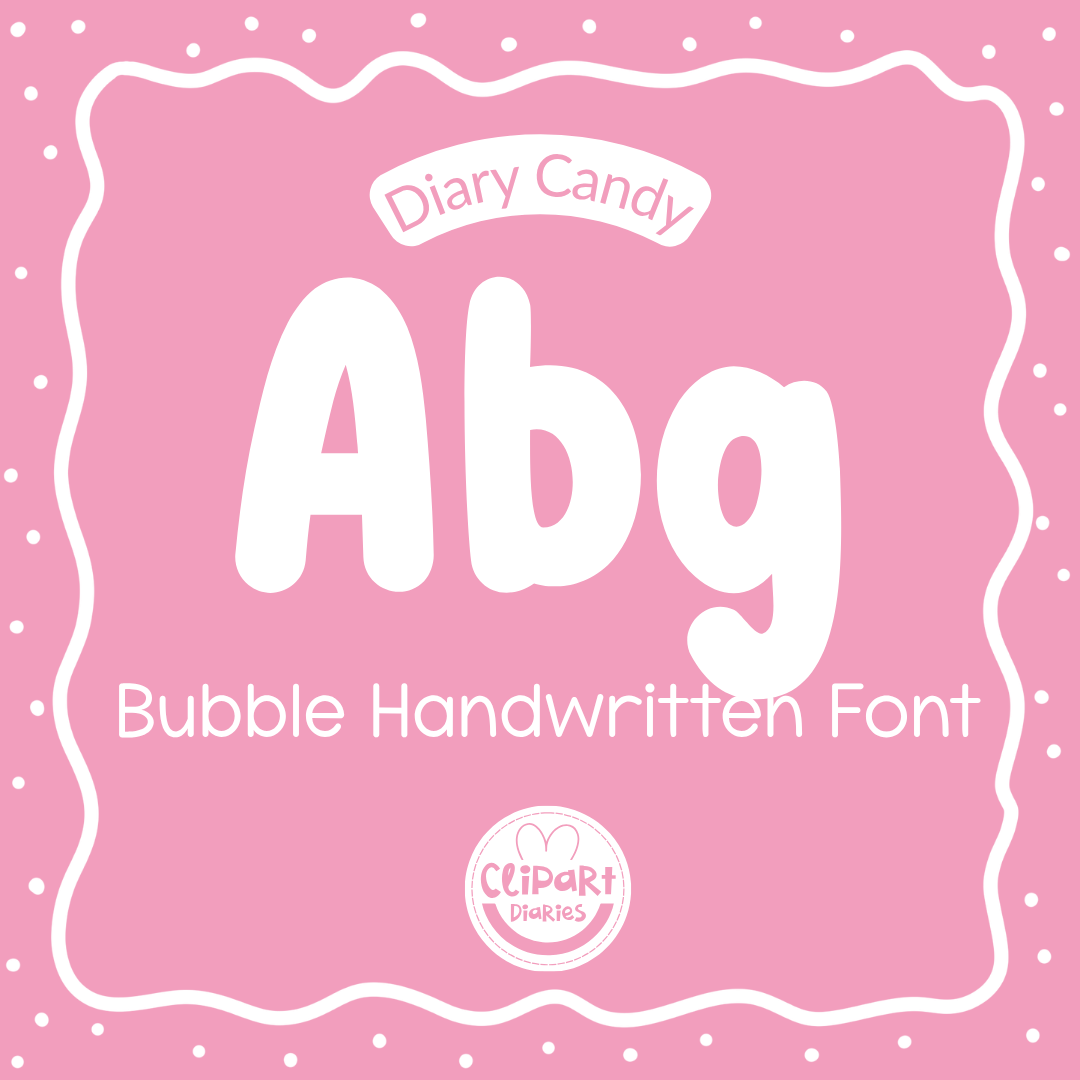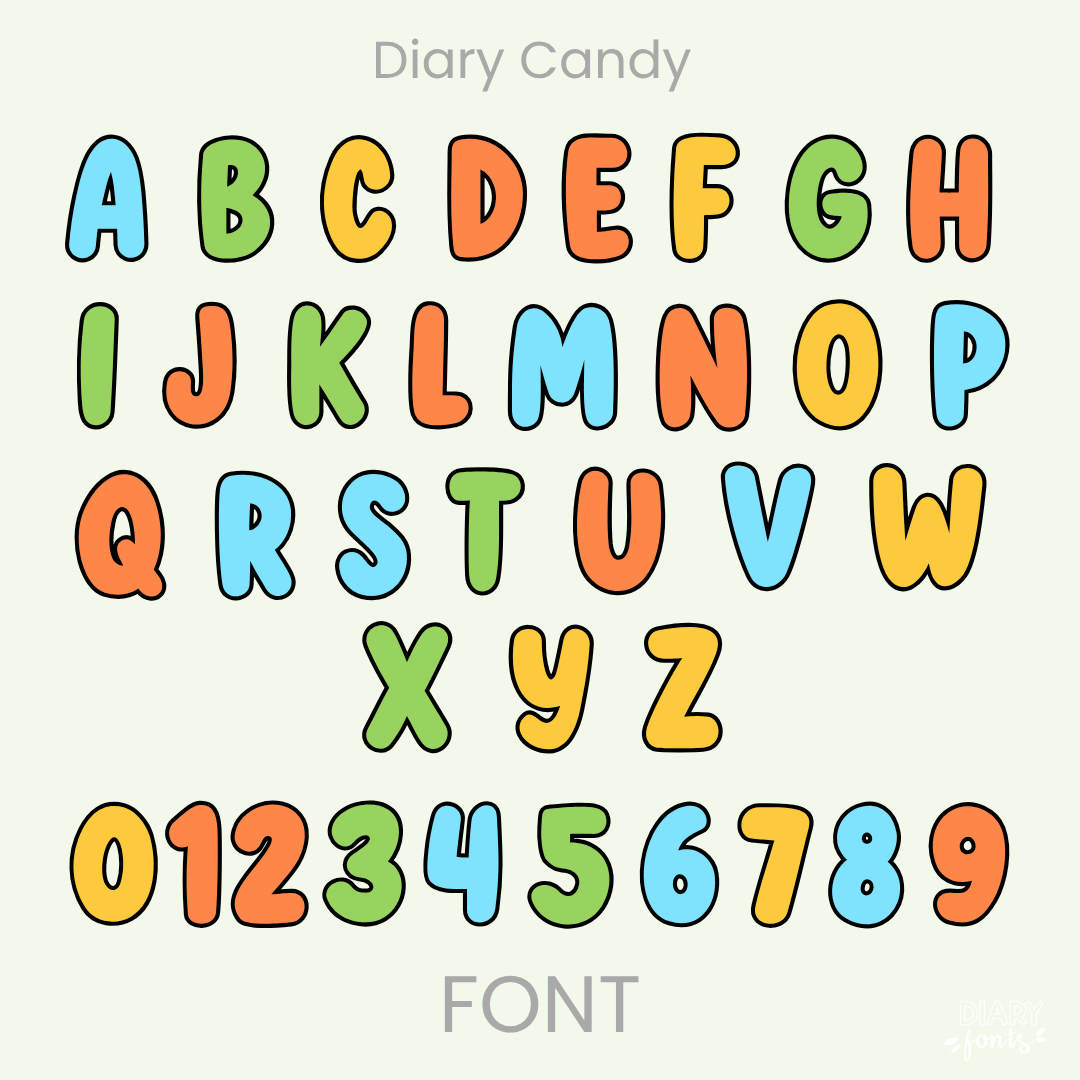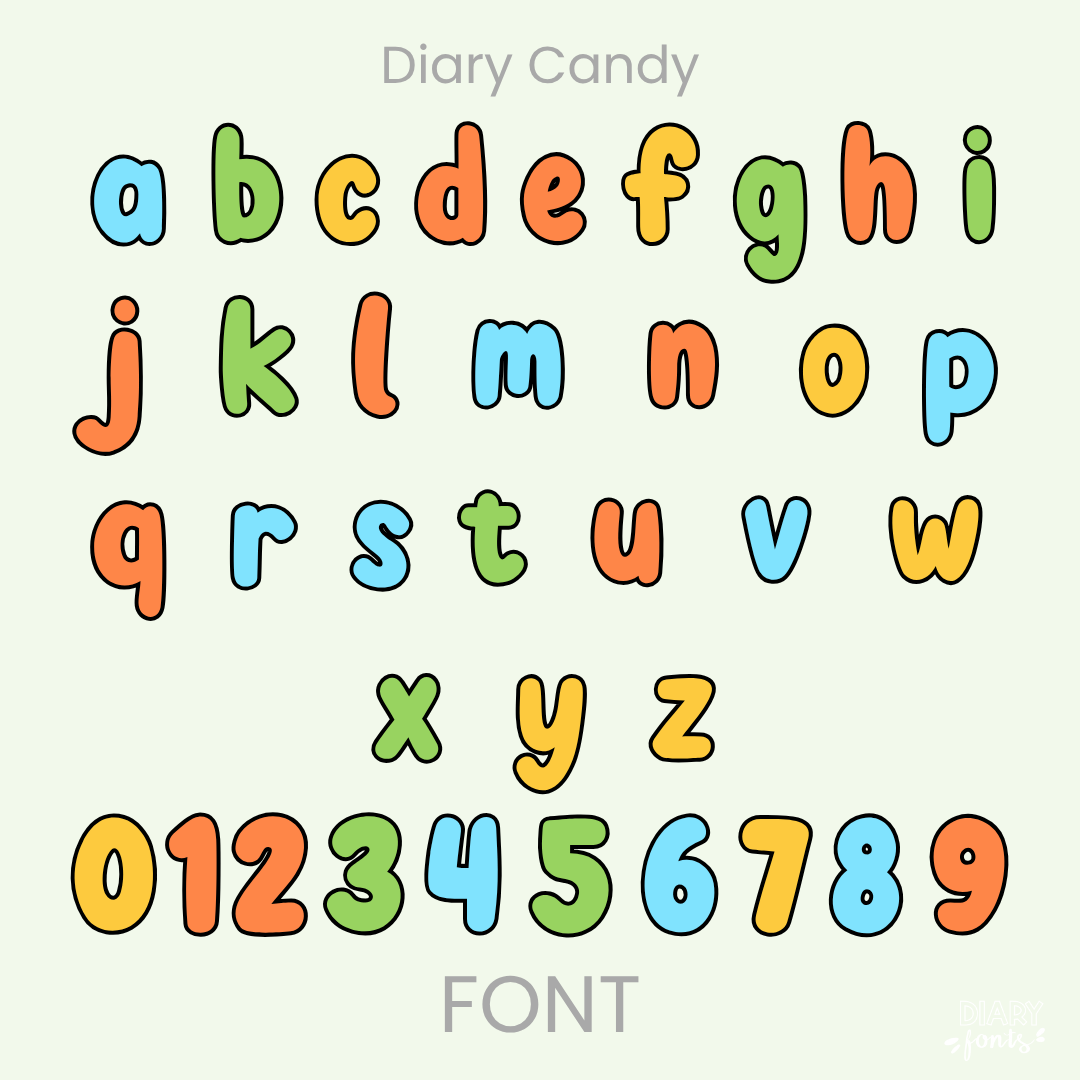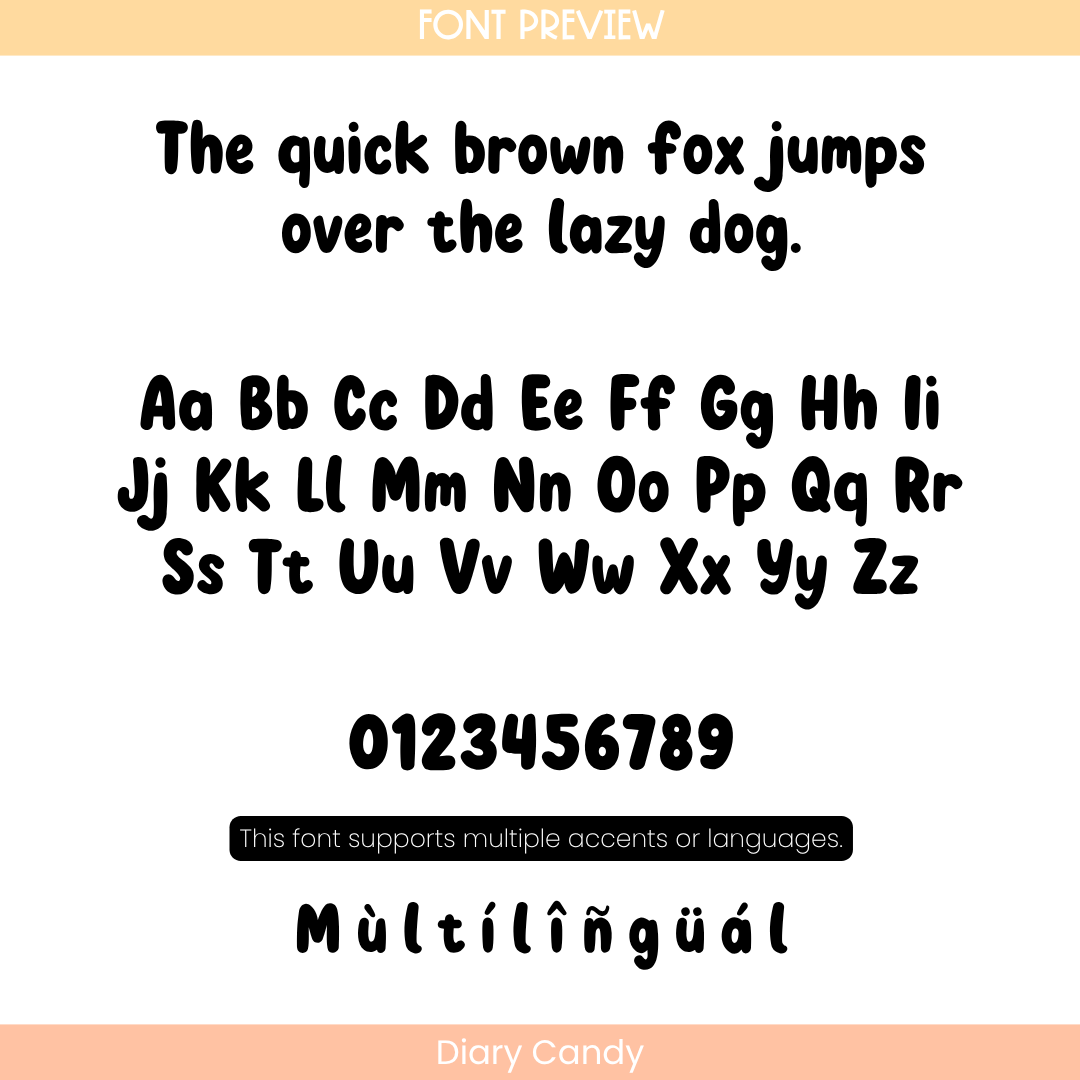
If you are looking for a font that feels fun and friendly, Diary Candy is a great pick. It features smooth, rounded letterforms with a slightly thick stroke, making it look a bit like classic bubble letters but with a natural, handwritten flow. This style is excellent for primary school resources because it remains very easy to read while looking more approachable than a standard print font. It is a perfect fit for eye-catching headers, classroom labels, and creative worksheets. The font includes a full set of uppercase and lowercase letters, numbers, and supports multiple languages with various accents. It works effortlessly in Canva, MS Office, and Adobe Apps, and is fully compatible with iPad tools like GoodNotes and Procreate. Whether you are creating materials for your students or products for your shop, this font adds a cheerful, hand-crafted touch to your work.
Diary Candy Font
The Diary Candy is a sweet, bubble-style handwritten font designed to give your digital resources and classroom materials a soft and playful personality.